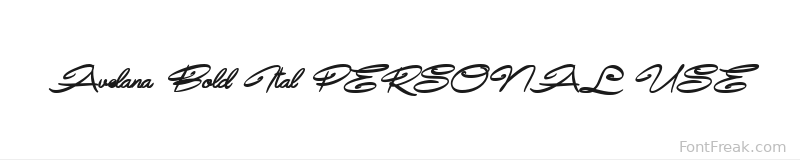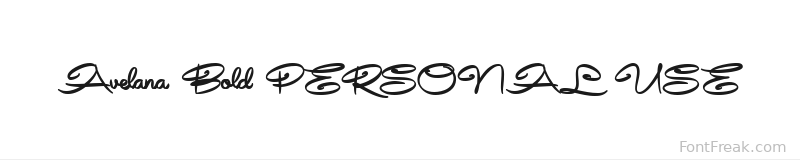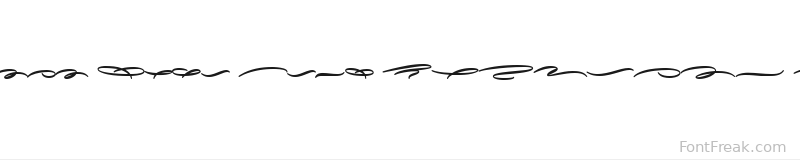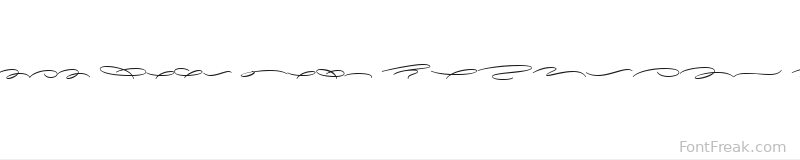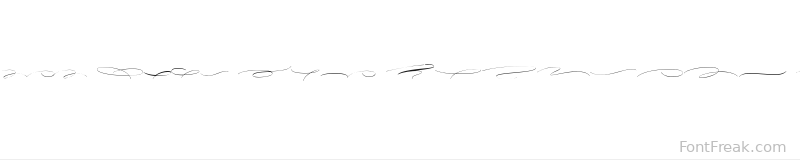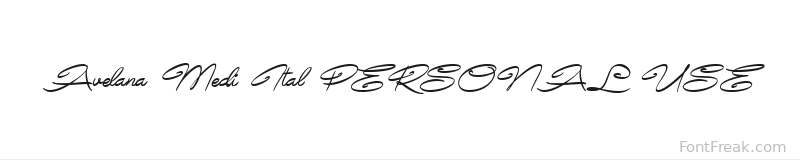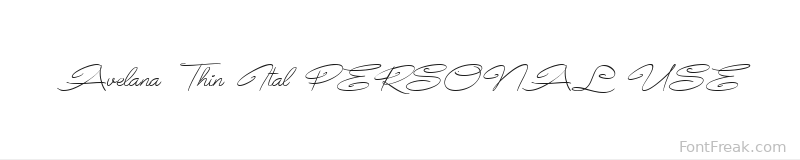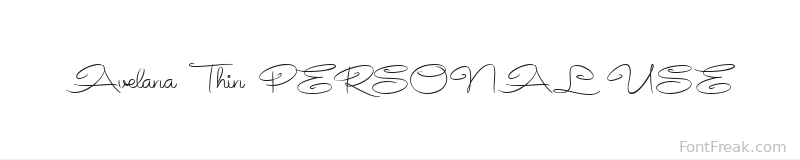
Avelana Medi PERSONAL USE
Avelana Thin Ital PERSONAL USE
Avelana Medi Ital PERSONAL USE
Avelana Thin PERSONAL USE
Avelana Bold Ital PERSONAL USE
Avelana Bold PERSONAL USE
Avelana Deco Bold PERSONAL USE
Avelana Deco Thin PERSONAL USE
Avelana Deco Medi PERSONAL USE
Avelana Medi PERSONAL USE is an exquisite script font designed by Mans Greback, falling under the category of decorative typography. This font features a graceful and flowing design, characterized by its elegant thin strokes that create a beautiful contrast with its bold italic forms. The meticulous attention to detail in the letterforms gives Avelana Medi a refined and sophisticated appearance, making it a perfect choice for various creative applications. The spacing between the letters is thoughtfully balanced, allowing for clear readability while retaining its stylish flair.
This font is ideal for a multitude of use cases, including wedding invitations where its romantic aesthetic can enhance the overall theme. It also works beautifully for movie posters, adding a touch of elegance and intrigue that captures attention. Restaurant menus can benefit from Avelana Medi, as the font's decorative elements can elevate the dining experience with a touch of sophistication. Additionally, it is a fantastic choice for branding materials, such as logos and business cards, that aim to convey a sense of luxury and creativity.
What truly sets the Avelana Medi PERSONAL USE font apart is its ability to blend elegance with versatility. Whether you are crafting a heartfelt invitation or designing eye-catching promotional materials, this font provides an exquisite touch that resonates with viewers. Experience the charm of Avelana Medi PERSONAL USE font free download and elevate your design projects to new heights.